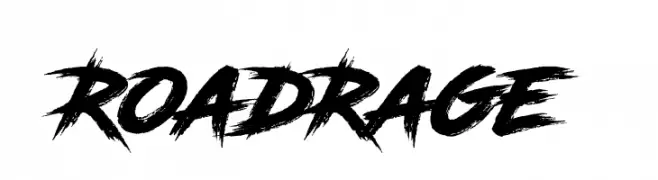
A modern, layered font with a three-dimensional effect and decorative line work.
A playful, rounded font with bold, smooth curves and a friendly appearance.
A bold, textured font with a distressed, grunge-like appearance.
A dynamic, cursive script font with expressive, flowing strokes.
An elegant script font with flowing cursive style and intricate swashes.
A bold, dynamic script font with flowing, cursive characters.
A bold, vintage-inspired font with sharp, angular edges.